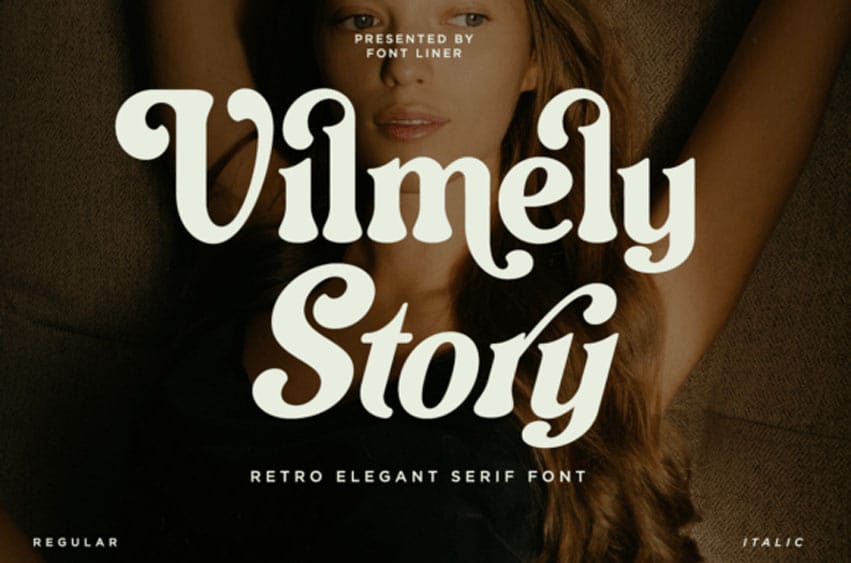
Vilmely Story Font is a retro, elegant serif font for elegant designs. Available in both Regular and Italic styles, this font is packed with stylish alternates and ligatures for endless creative possibilities.
Whether for bold branding, editorial projects, or social media graphics, it delivers timeless charm and versatility. Its unique blend of retro aesthetics and modern sensibilities ensures standout typography for any project. It’s perfect for logos, lettering artwork, t-shirt designs, and editorial illustrations, to name a few.